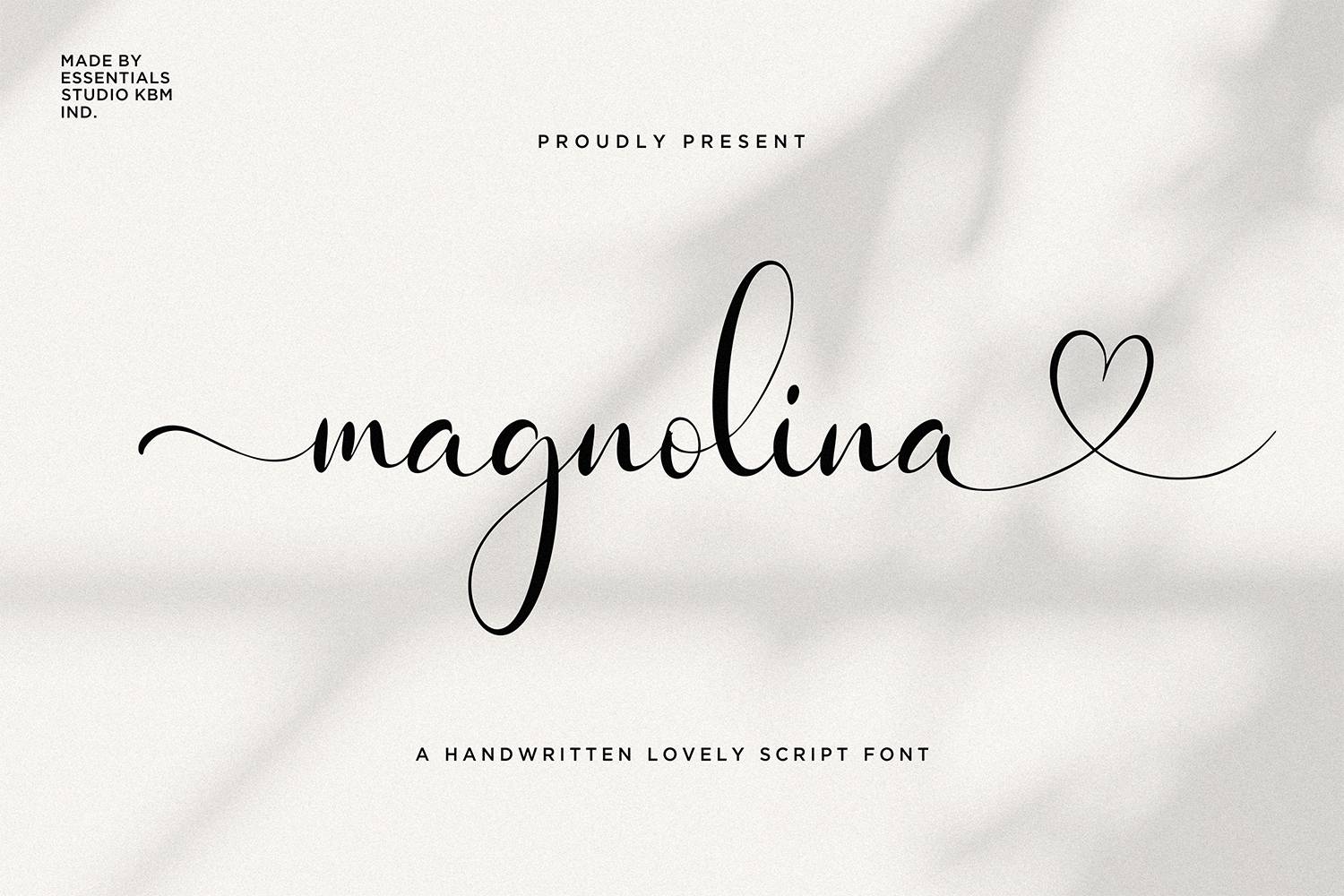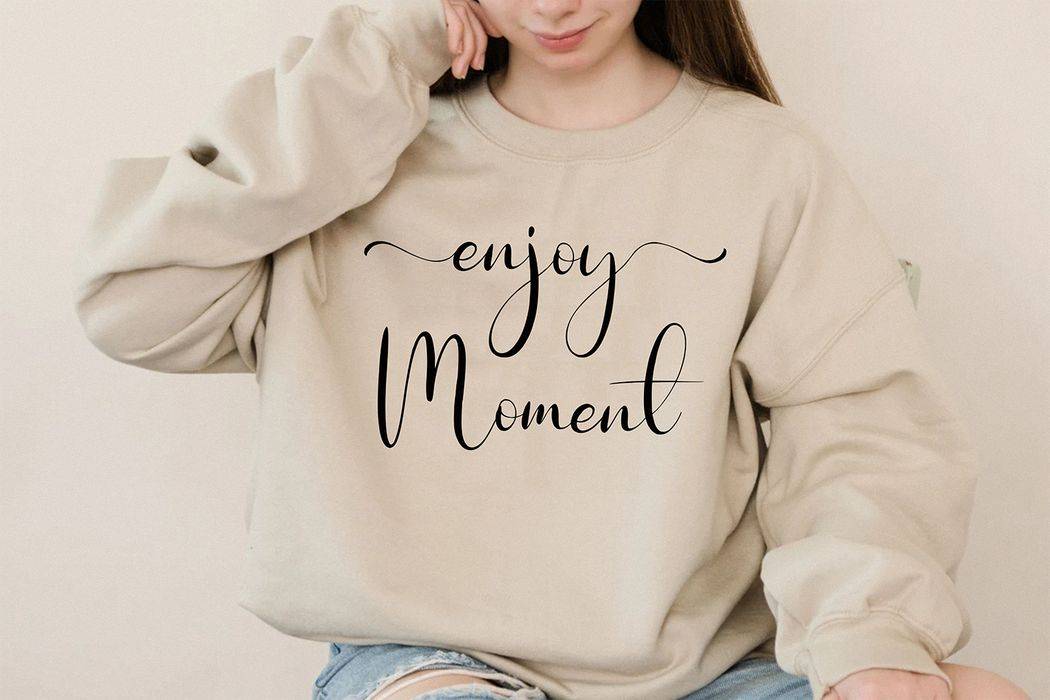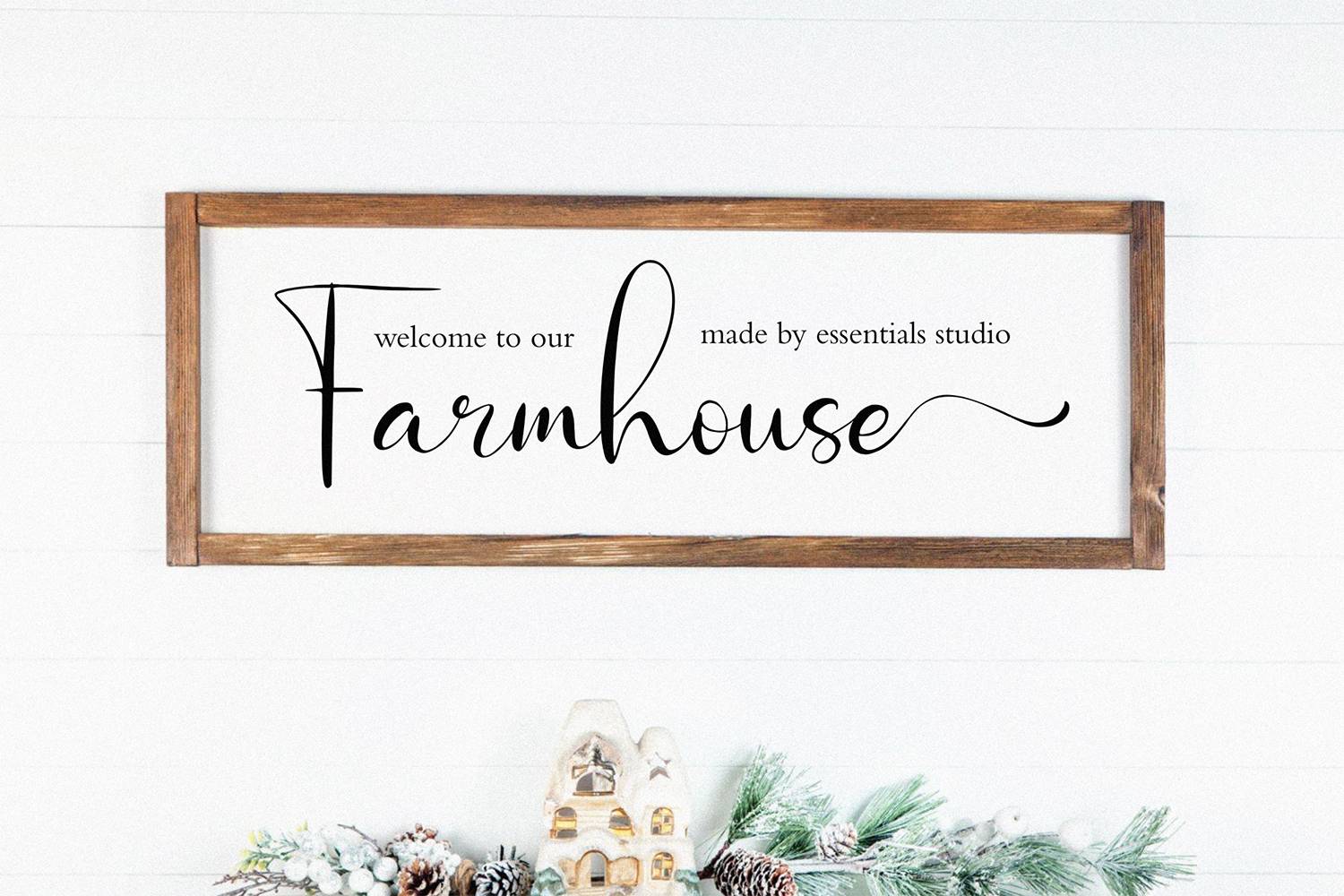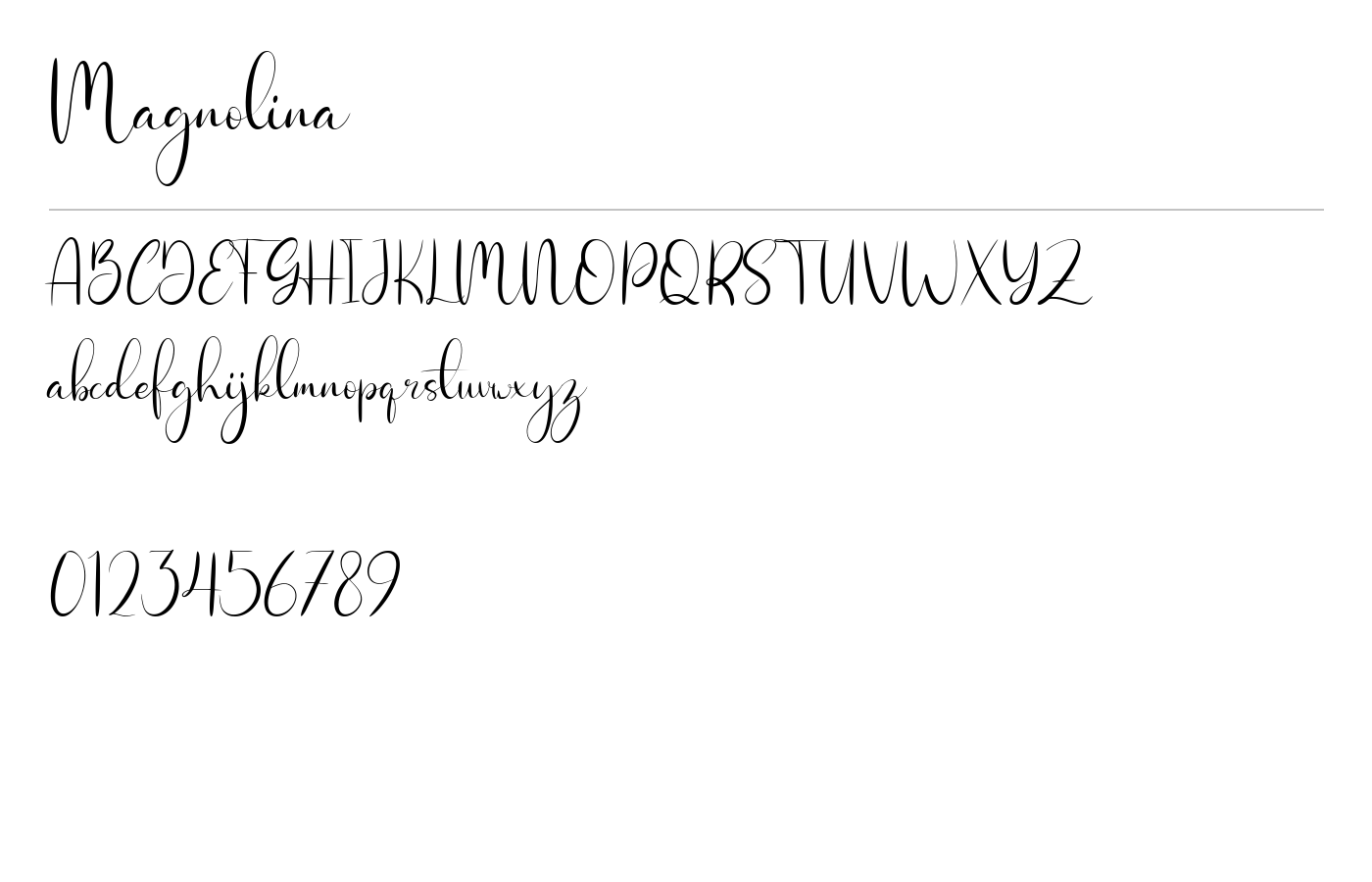
Magnolina is an elegant, delicate script font with a light weight and tall, narrow letterforms that give it a graceful, airy feel. Its handwritten style features flowing strokes and slender curves, making it perfect for feminine branding, wedding invitations, and sophisticated editorial projects where a stylish, personal touch is desired. This font's refined charm works beautifully in headlines and decorative text, creating a sense of luxury and gentle sophistication.
Magnolina Font
About Magnolina Font
| Font family | Magnolina Font |
| Designer | Sulthan Mada Maulana Tsani |